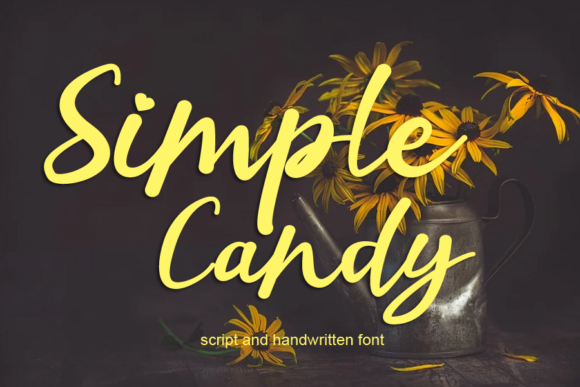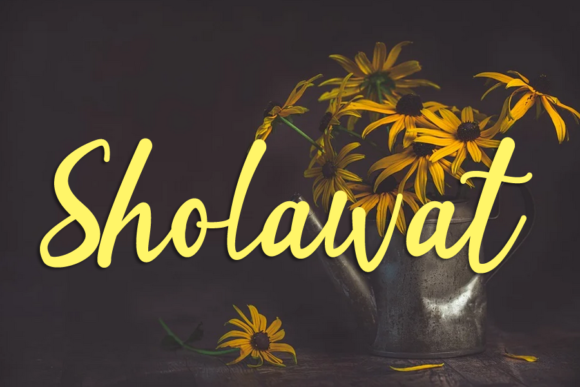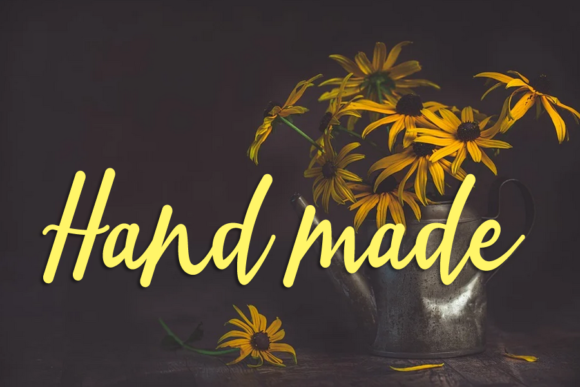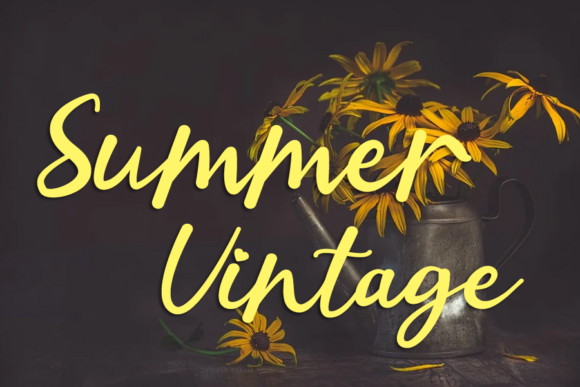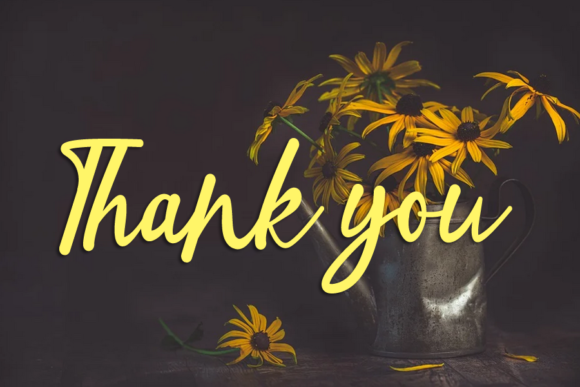
Simple Candy Font
About Simple Candy Font
Simple Candy is a stylish and incredibly elegant handwritten font. It looks stunning on wedding invitations, thank you cards, quotes, greeting cards, logos, business cards and every other design which needs a handwritten touch.